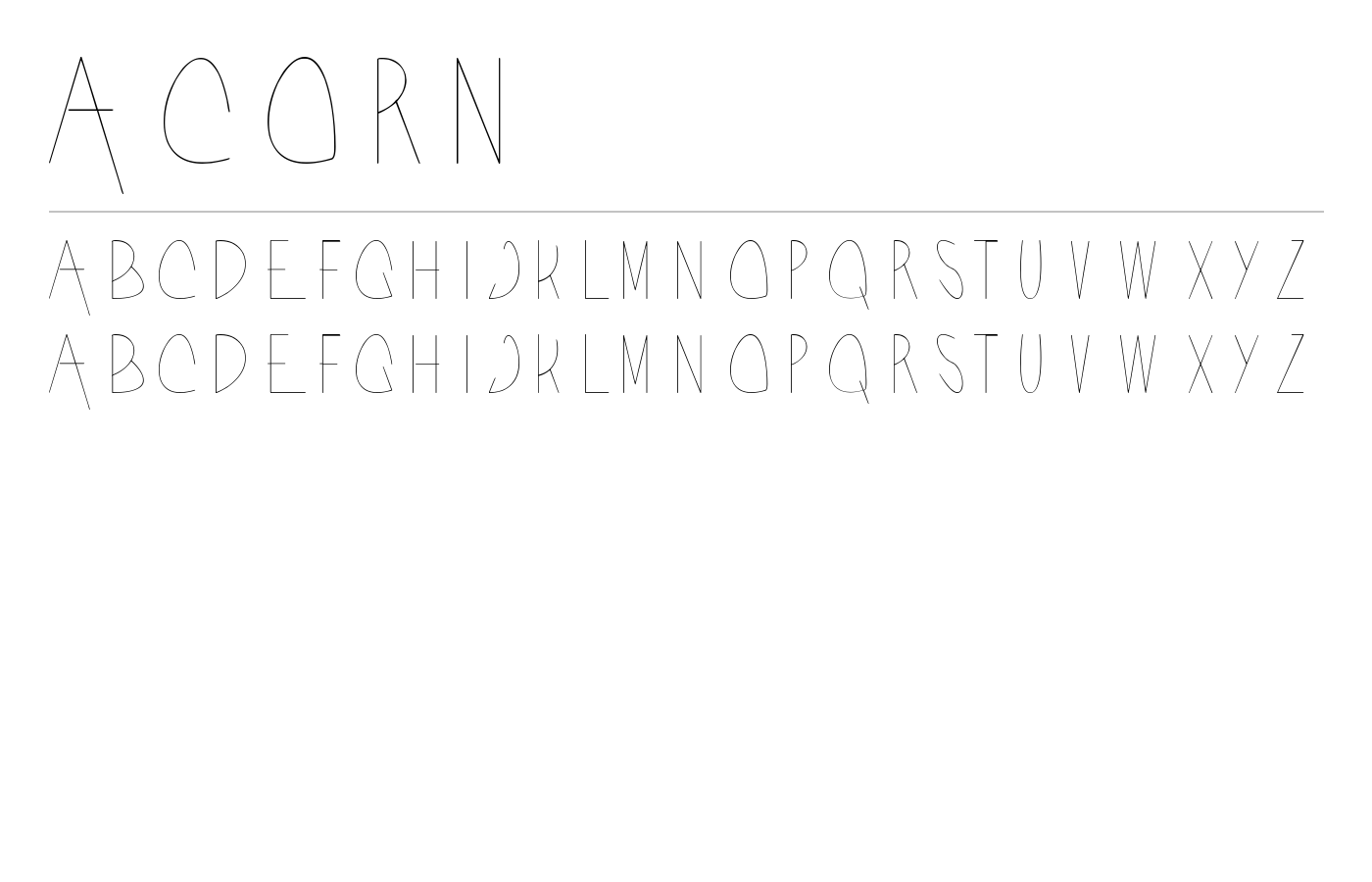
Acorn is a delicate, tall, and narrow sans serif font with a whimsical, hand-drawn feel. Its thin strokes and playful letterforms create an airy, artistic look that works well for creative projects, headlines, and decorative text where a light, unique style is desired. This font is ideal for branding or design that aims to convey elegance combined with a touch of casual charm.
Acorn Font
About Acorn Font